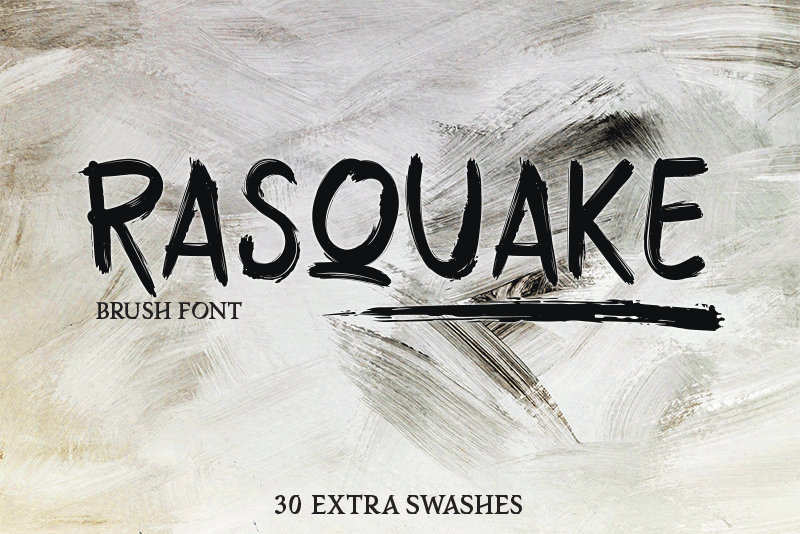
Thanks for your support RASQUAKE is an strong and attractive font attracting interest to read or see it, Very Quick and Powerful full of energy in submitting a message that is suitable for logo, quotes, branding, t shirt design, or anything which needs a typographic turbo-boost. If you need further assistant, please contact me via email : (mrdegikurniawan@gmail.com) or for more design follow instagram for update portfolio : https://www.instagram.com/nine6kills// link download full version : https://creativemarket.com/degikurniawan/2940675-RASQUAKE-brush-font-EXTRA-swashes Paypal account for donation : https://www.paypal.me/MadesaptoKurniawan REGARDS D&K_Project |